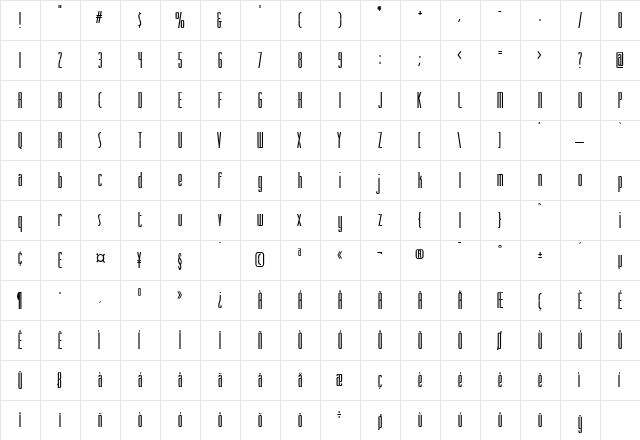
Lockleer Regular
Design Context for Lockleer Typeface
Lockleer offers clean, dependable letterforms without strong stylistic allegiance, making it a practical choice for designers who need flexibility.
Pro Tip: Use Lockleer in both headline and body roles to test its range before committing to a single application.